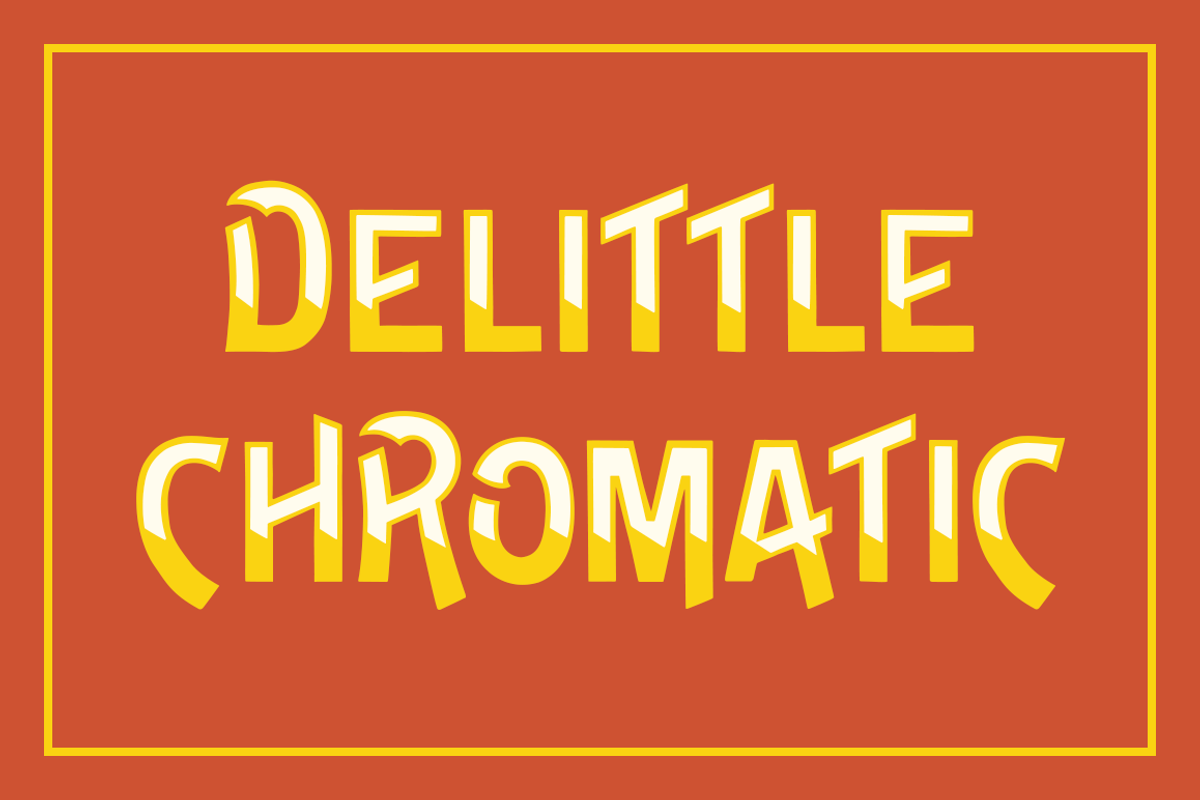
Delittle Chromatic Font Free Download is a striking vintage-style typeface inspired by classic wood type printing and traditional sign painting. Please note, you are required to purchase this font for commercial use. It is available for free download for testing and personal projects only.
Designed with layered chromatic options, Delittle lets you create bold, dimensional typography full of retro charm—perfect for posters, signage, logos, packaging, and editorial headlines. Its ornamental flair and historical feel make it a go-to for vintage-themed designs that demand attention.
By choosing Delittle Chromatic Font Free Download, you're gaining access to a beautifully crafted display font that installs easily and works across all major design platforms. Whether you're aiming for a circus-style banner, antique ad vibe, or playful retro headline, Delittle delivers dynamic character with authentic charm.